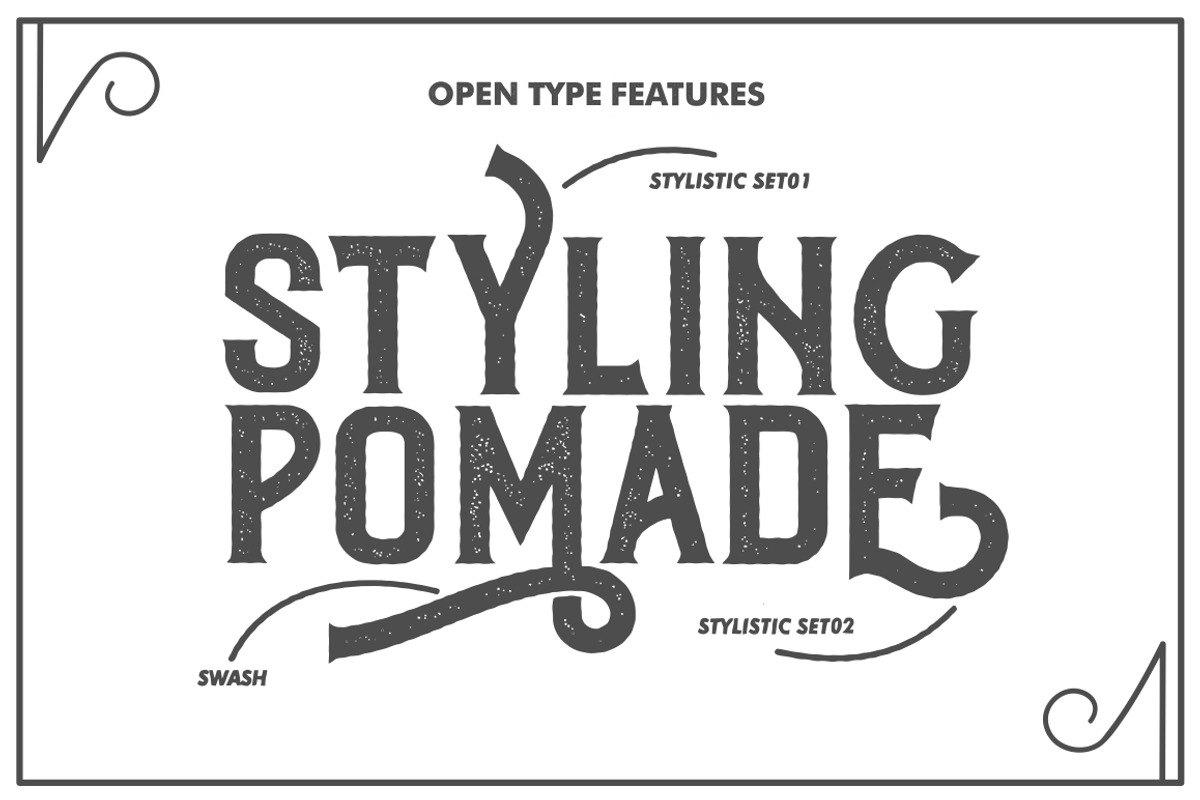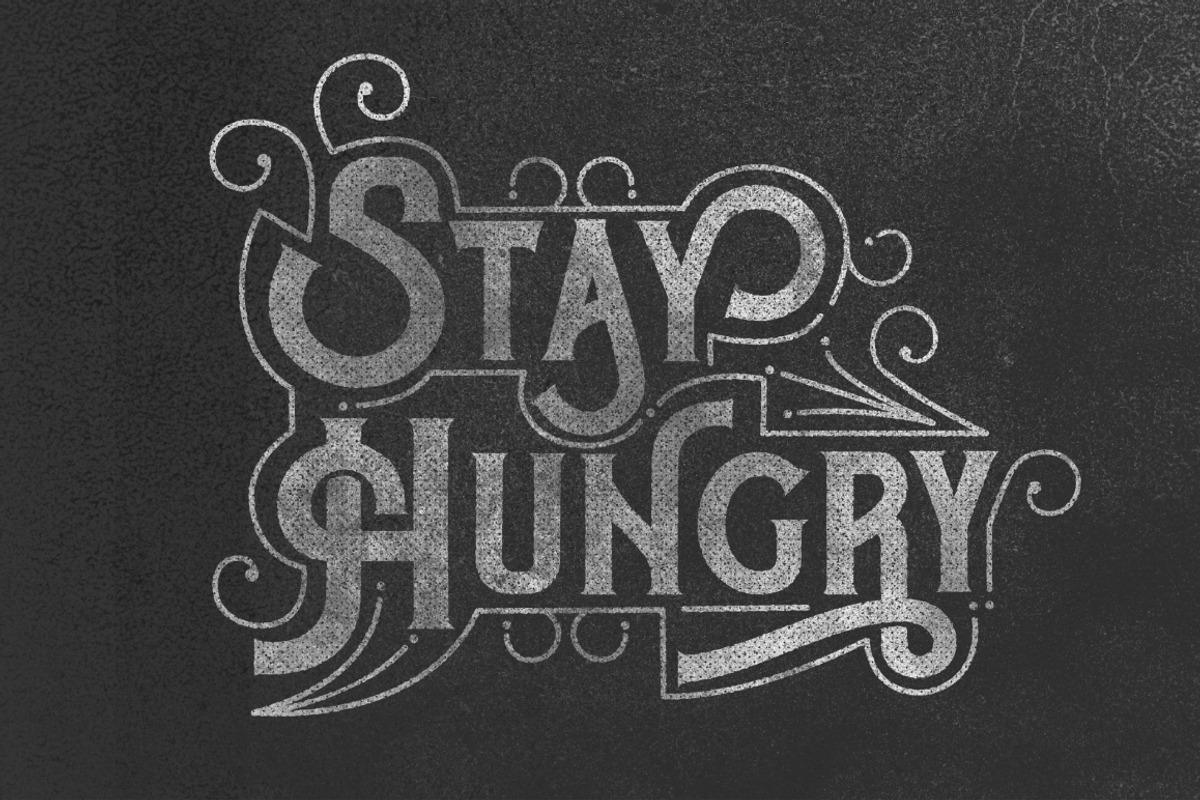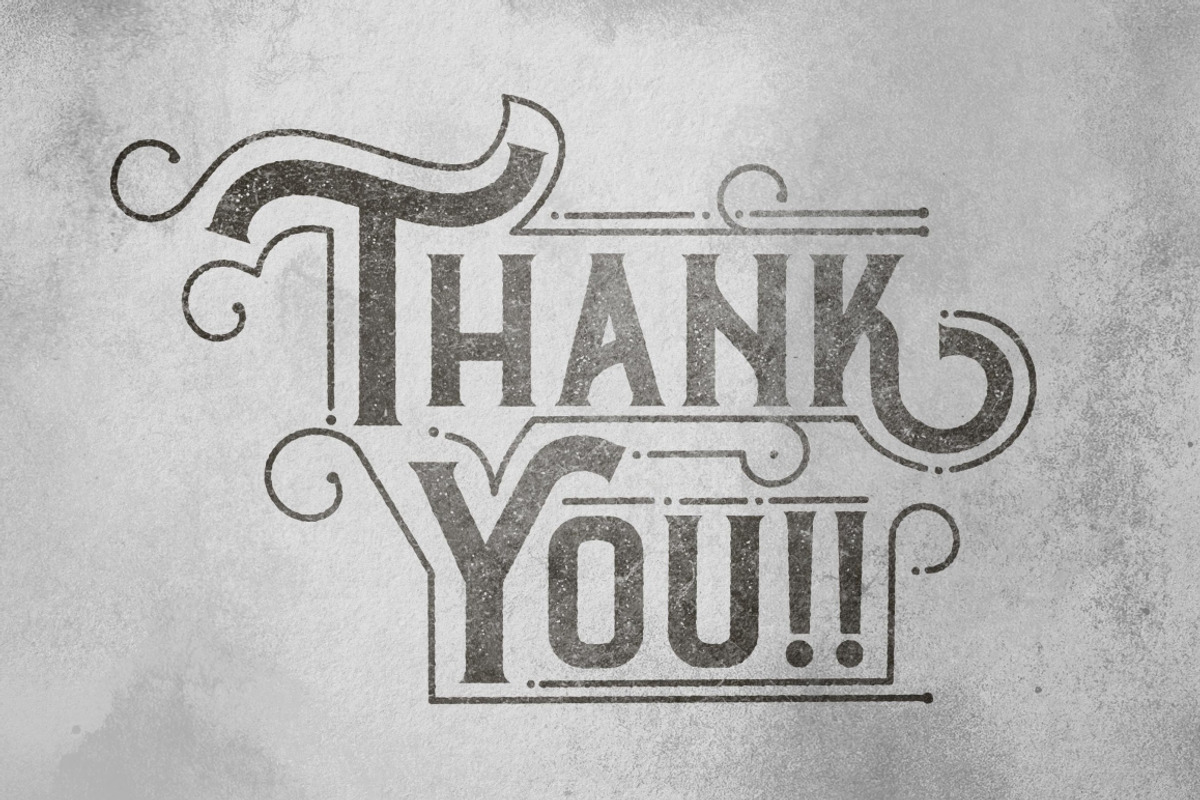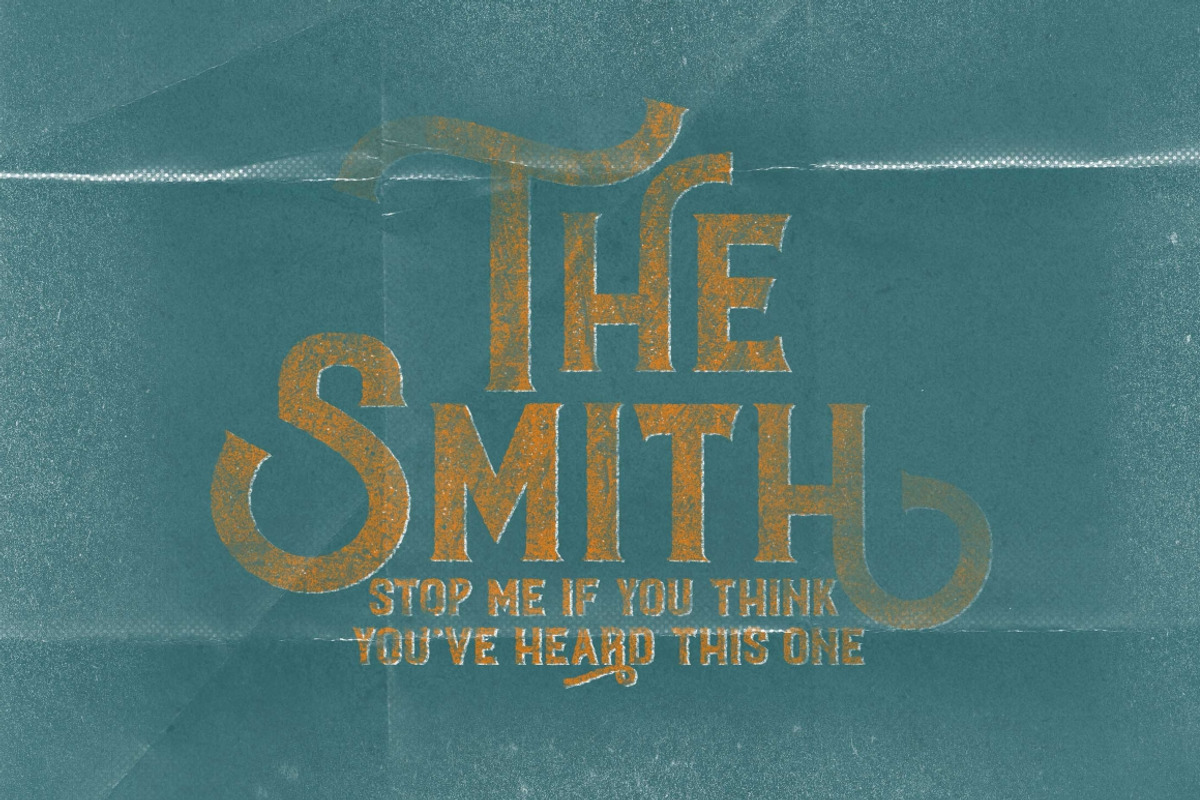
Roister Typeface
Roister Typeface by HRDR is a font selected for branding, posters, packaging, typography.
- Roister Typeface was made by combination from classic and modern style, trying to give a vintage feel with this font..Roister Typeface also
Why Roister Typeface is worth a look
Roister Typeface by HRDR fits naturally into Branding, posters, packaging, typography.